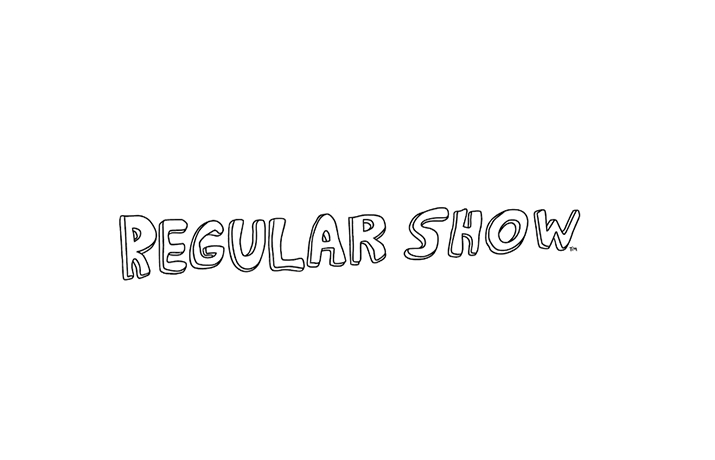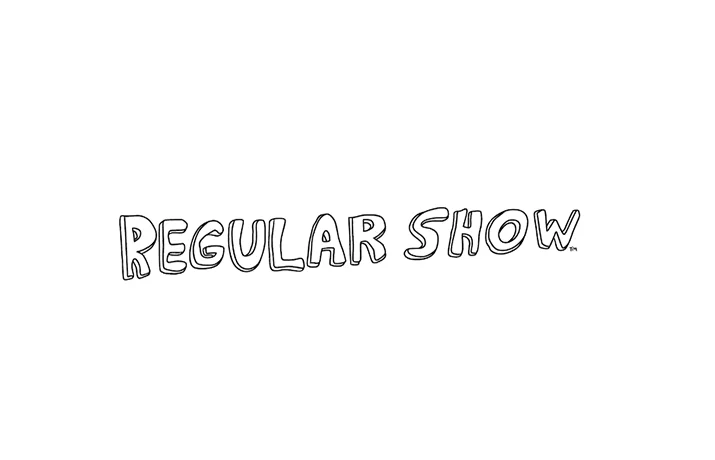
Regular Show Font Free Download
Regular Show Font is a cool 3D cartoon typeface with an outline style. This font is cheerful, user-friendly, and easy to use, especially for making distinctive headlines or titles.
Its unique letters deliver a cute and playful feel, making it great for children’s designs, candy shops, children’s product shops, and more. It was created by JG QUINTEL.
Therefore, many font designers use it for their special and unique projects. Because that font is primarily designed for fancy and unusual projects.
The closest font we can find that resembles the lettering is IceCream Party. This font was designed and shared by Xerographer Fonts.
- Uppercase & lowercase letters, numbers, symbols, and punctuation
Regular Show Font (Details)
| Font Name: | Regular Show Font Family |
| Style: | Fancy, Comic, 3D |
| Font Designer: | JG QUINTEL |